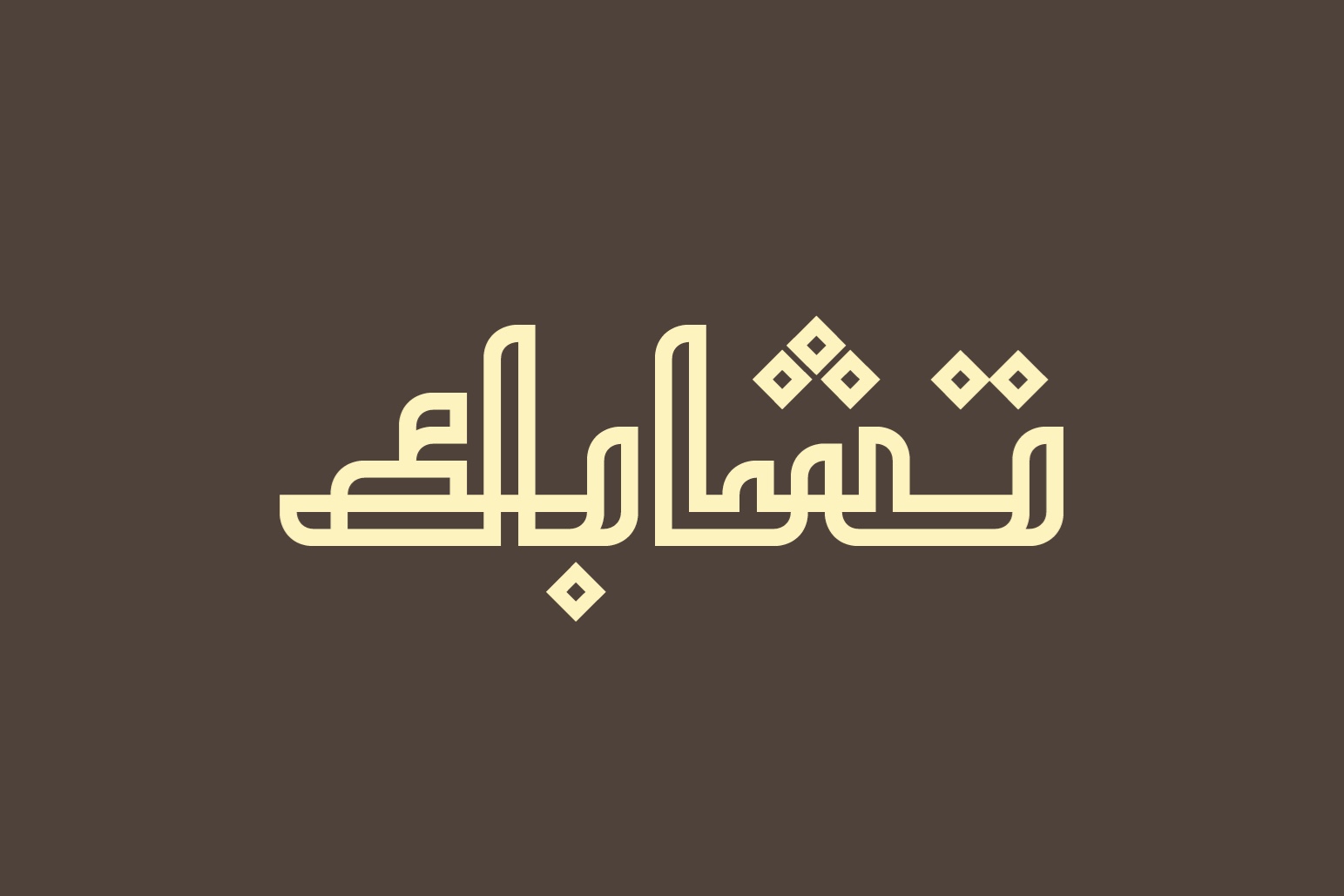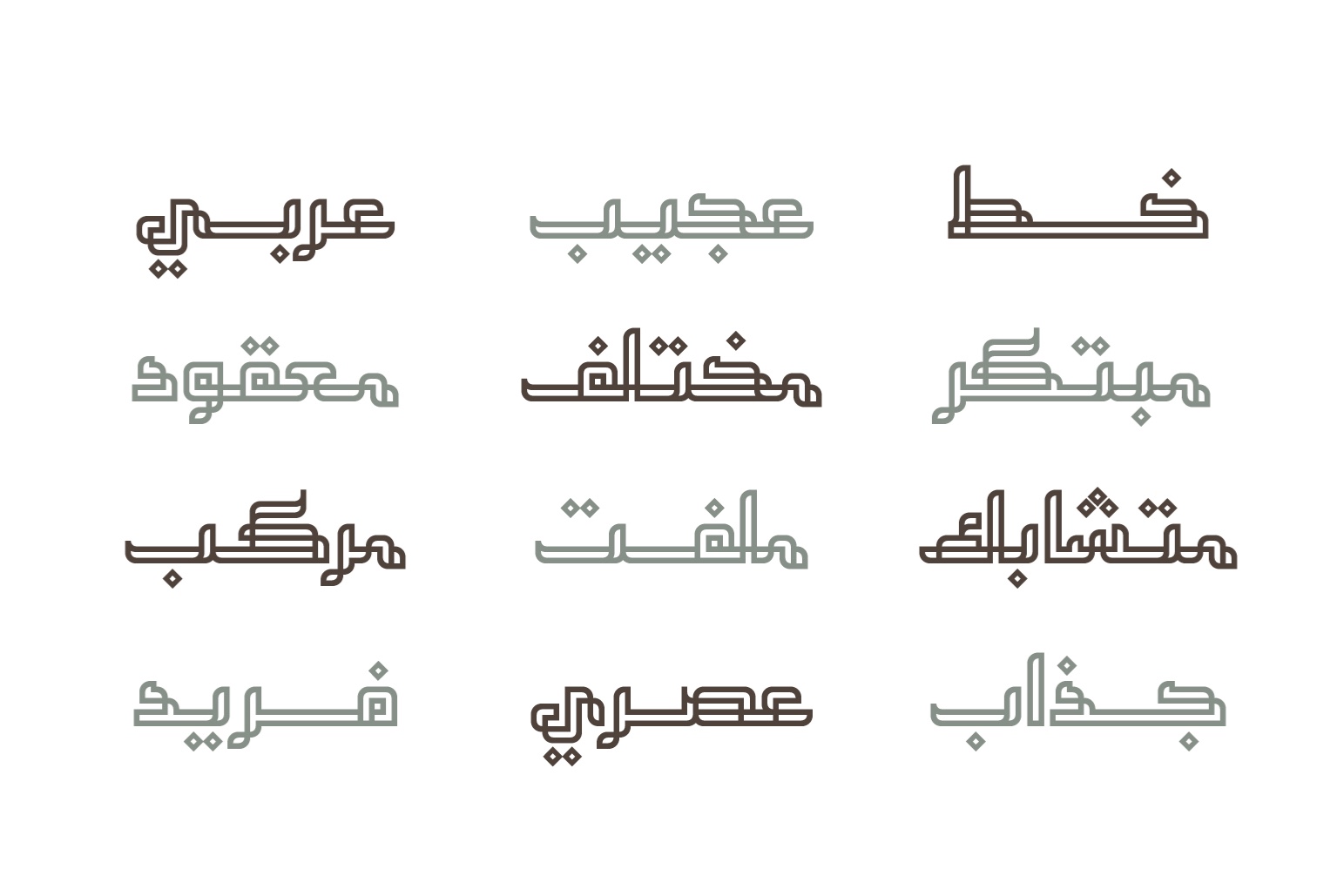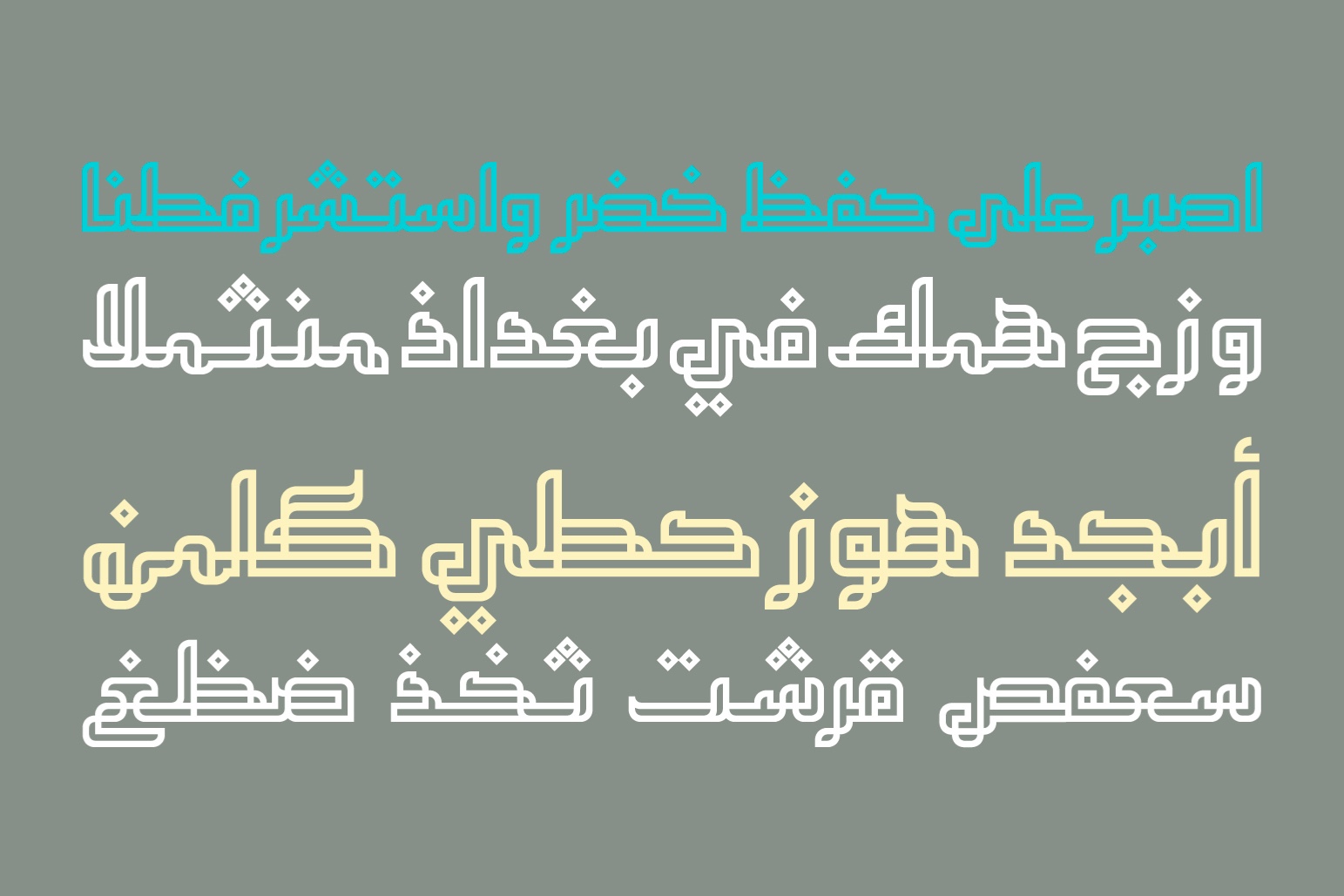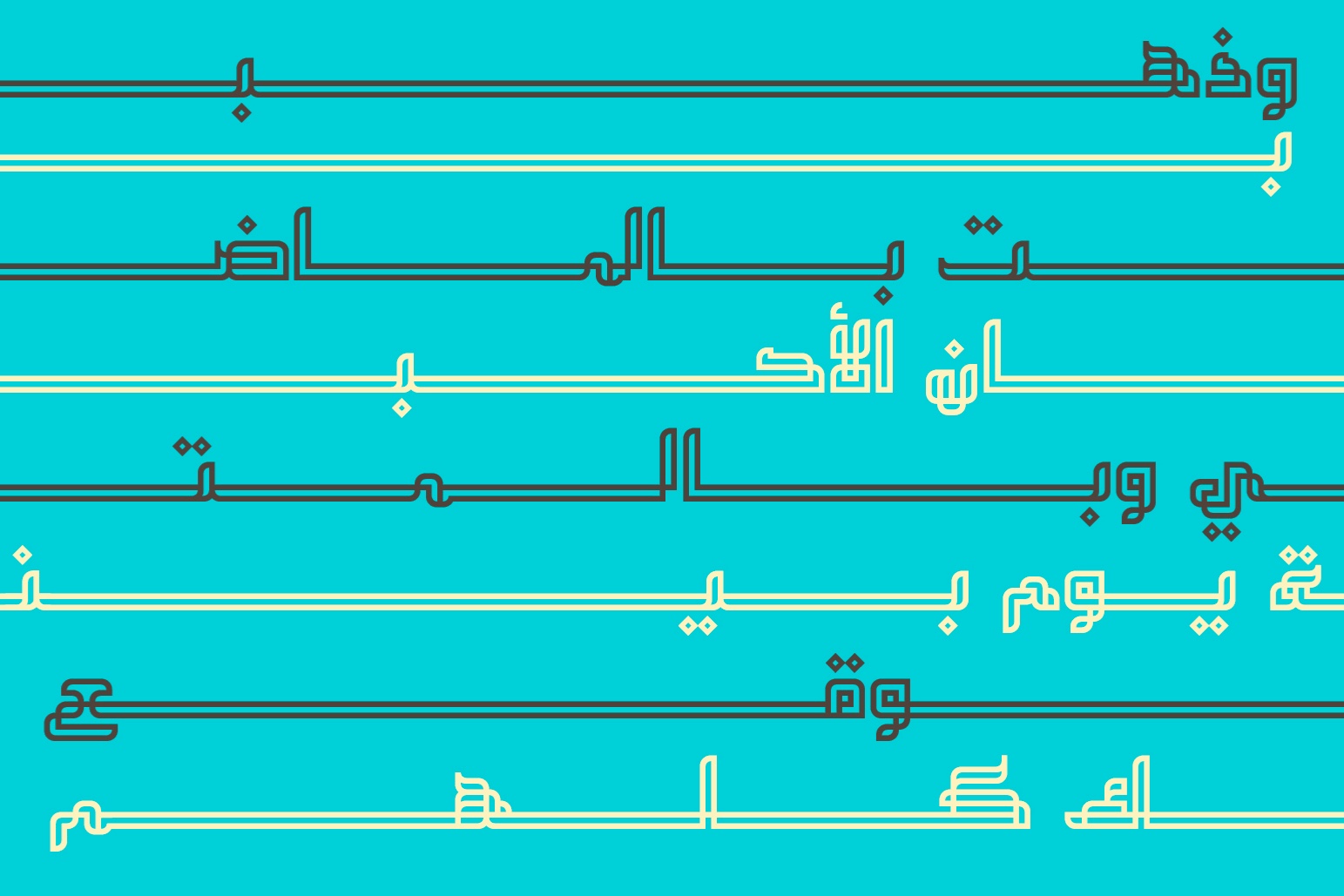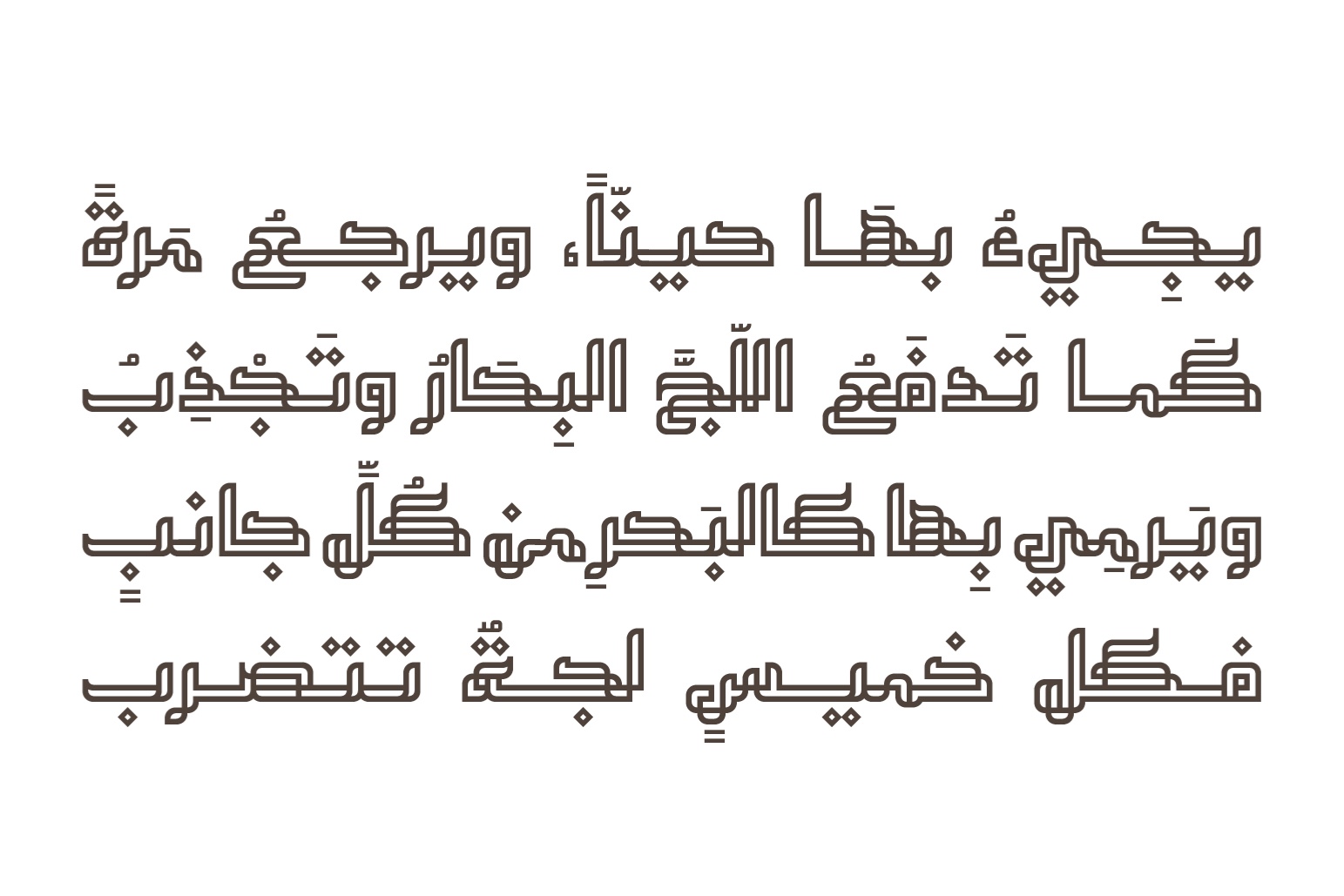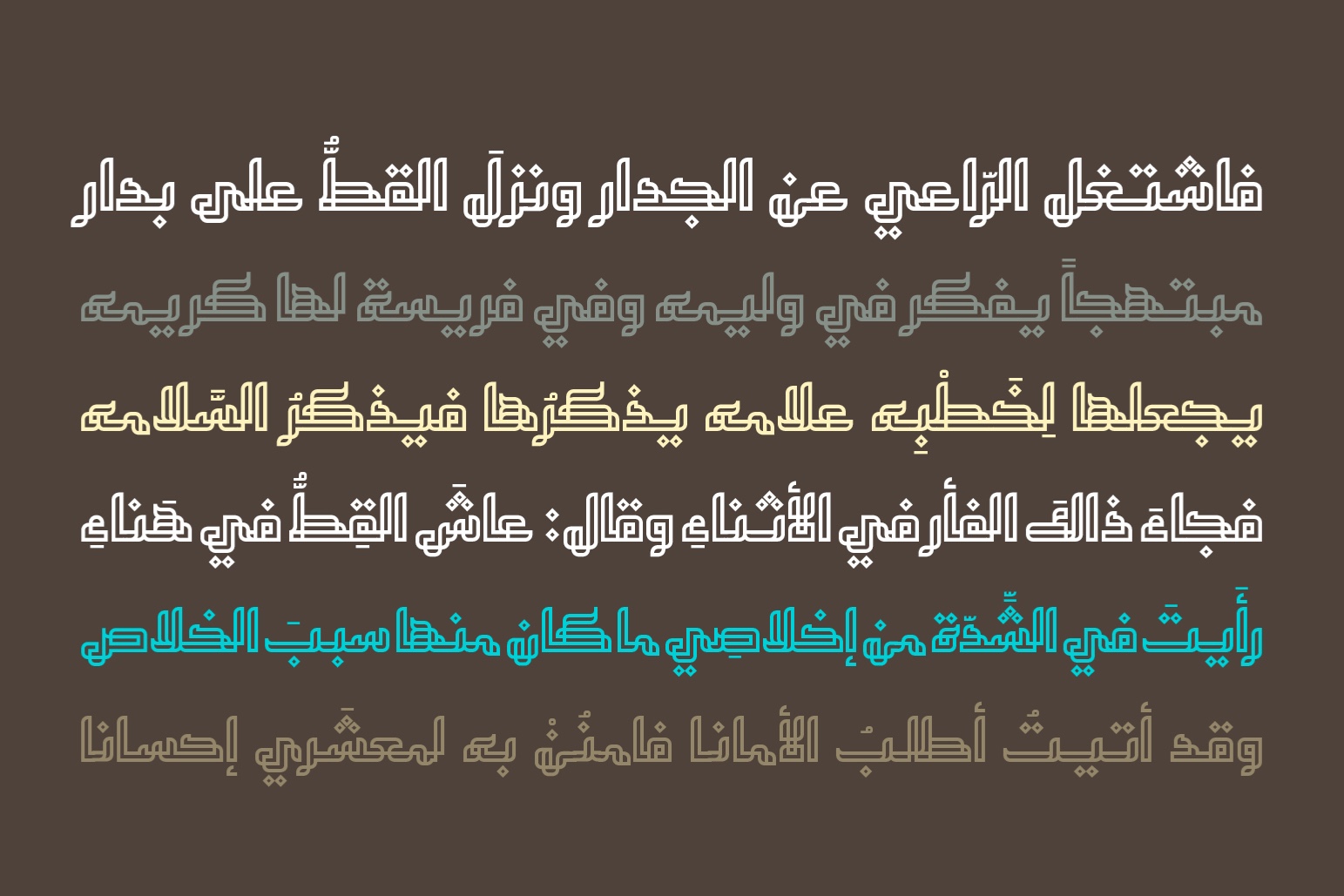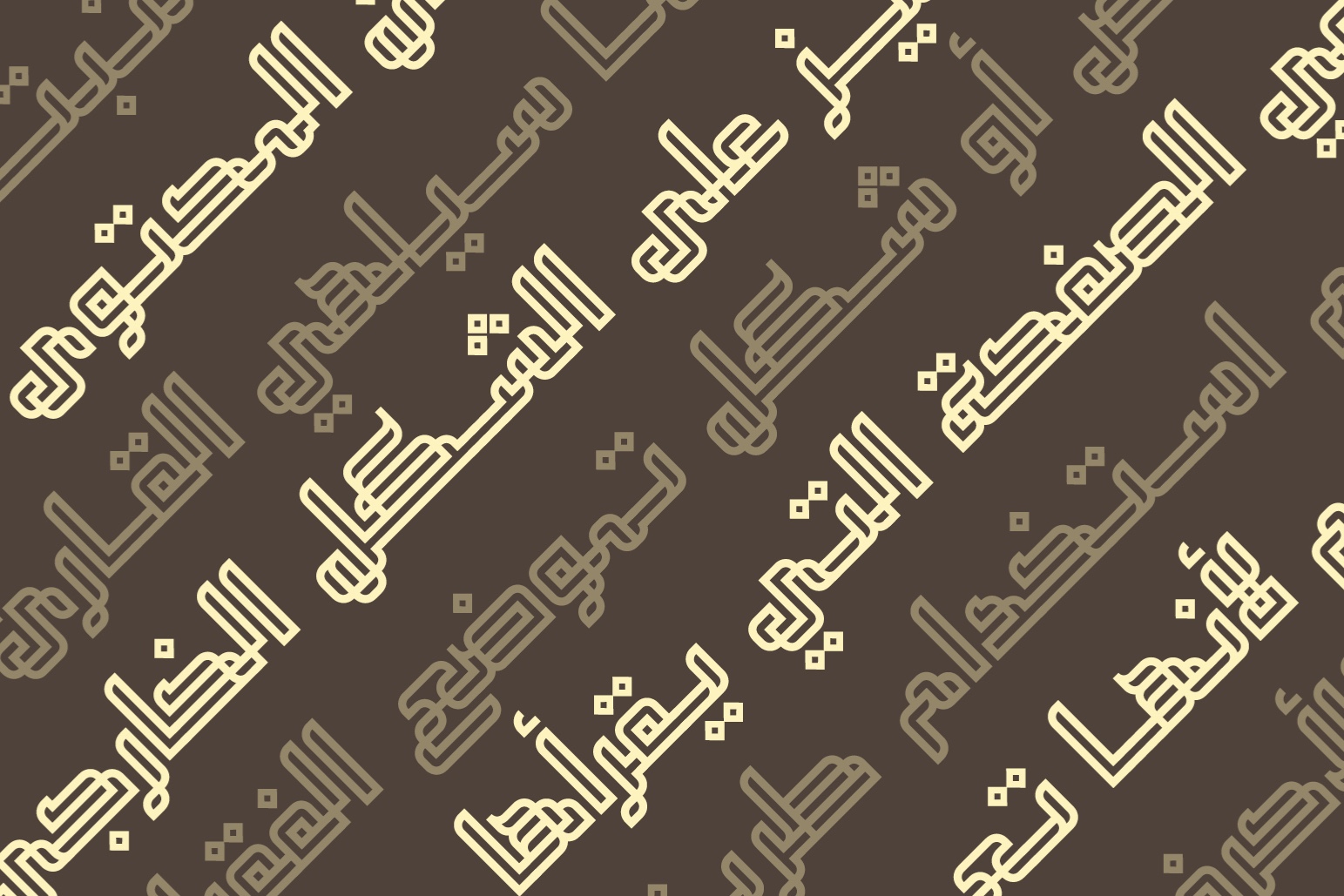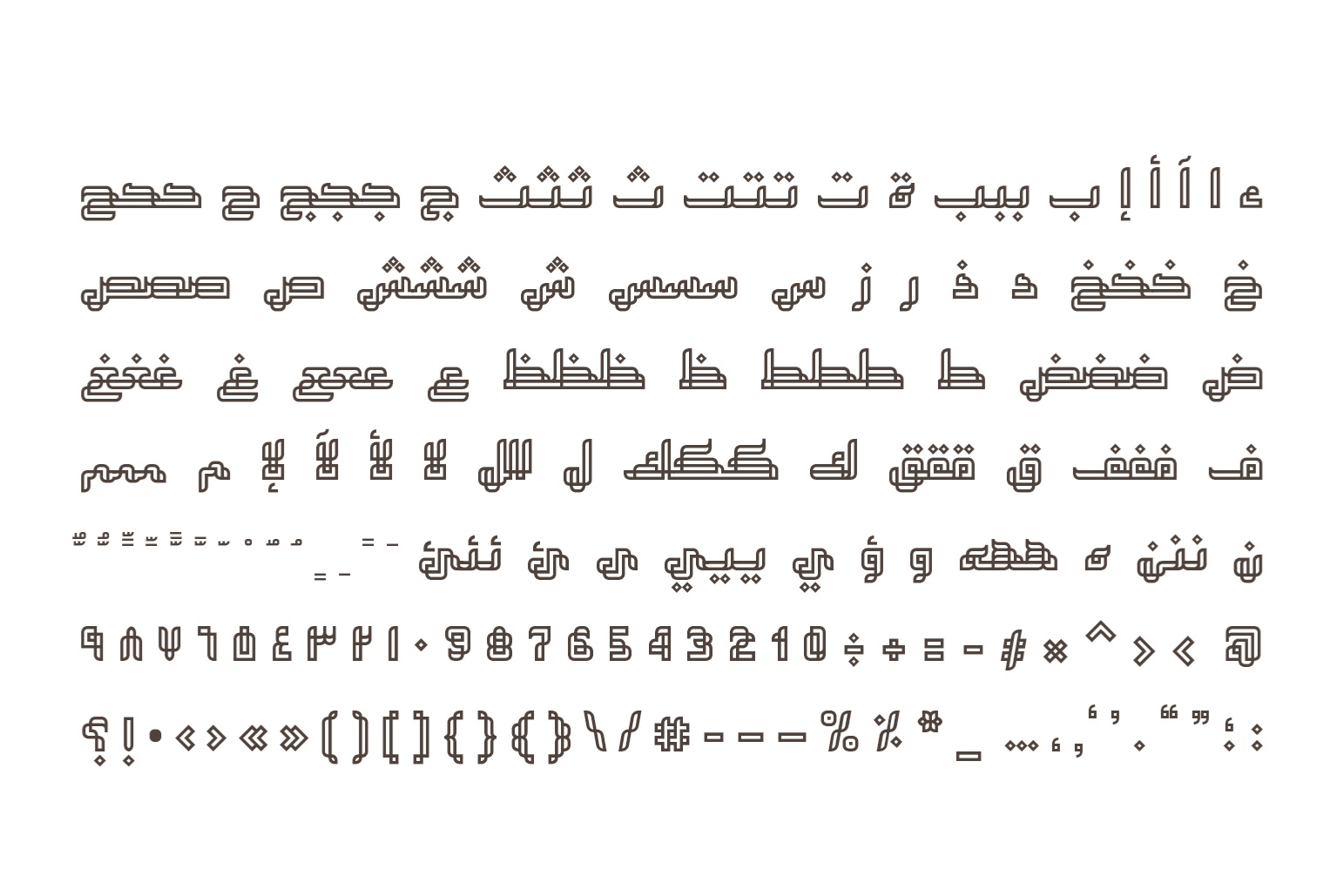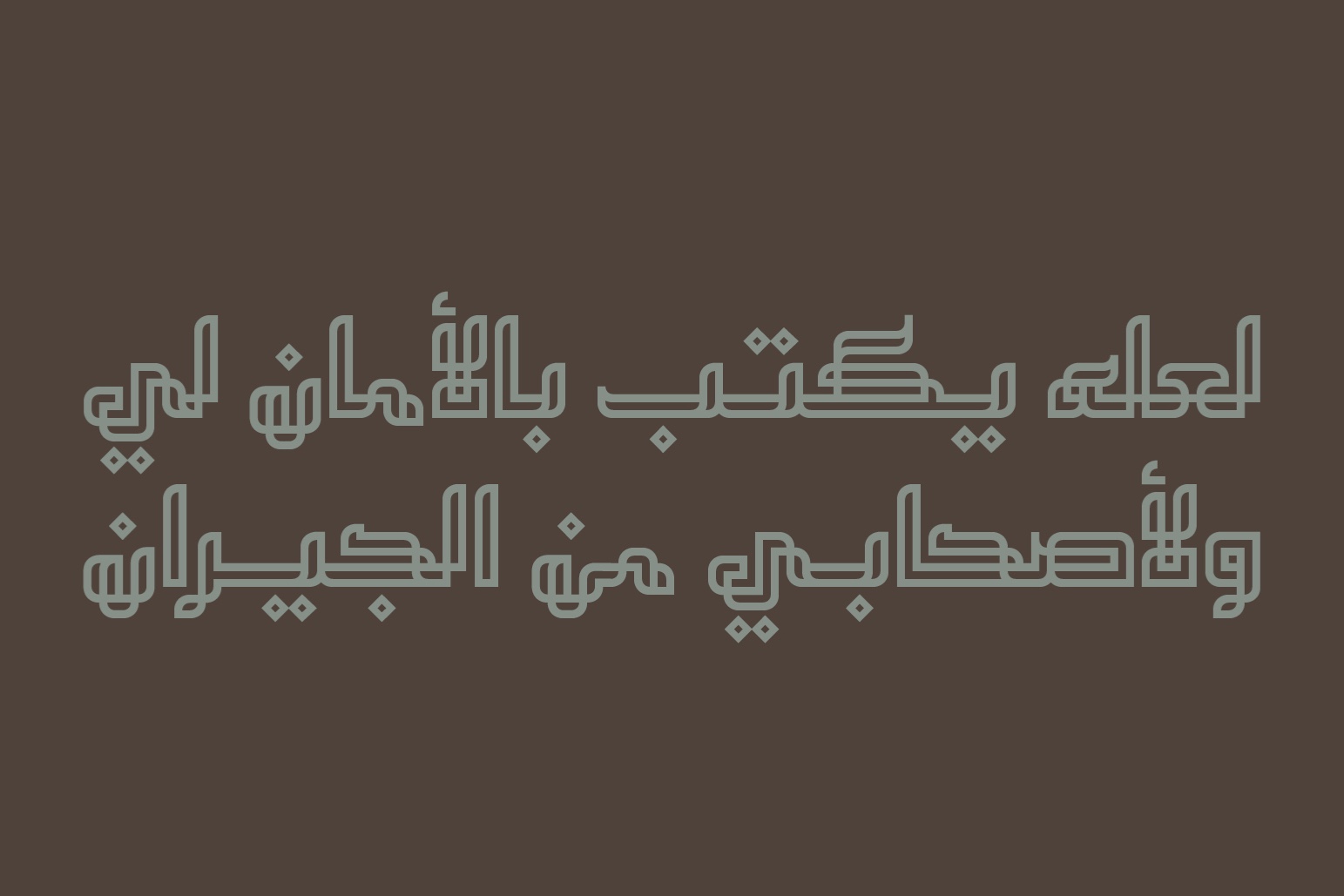
The word Tashabok is the Arabic for overlapping or intertwinement. Tashabok is an Arabic display font with uniquely interwined hollow letterforms. It suits creative titling, branding, advertising and web. It also suits typographic compositions and print.